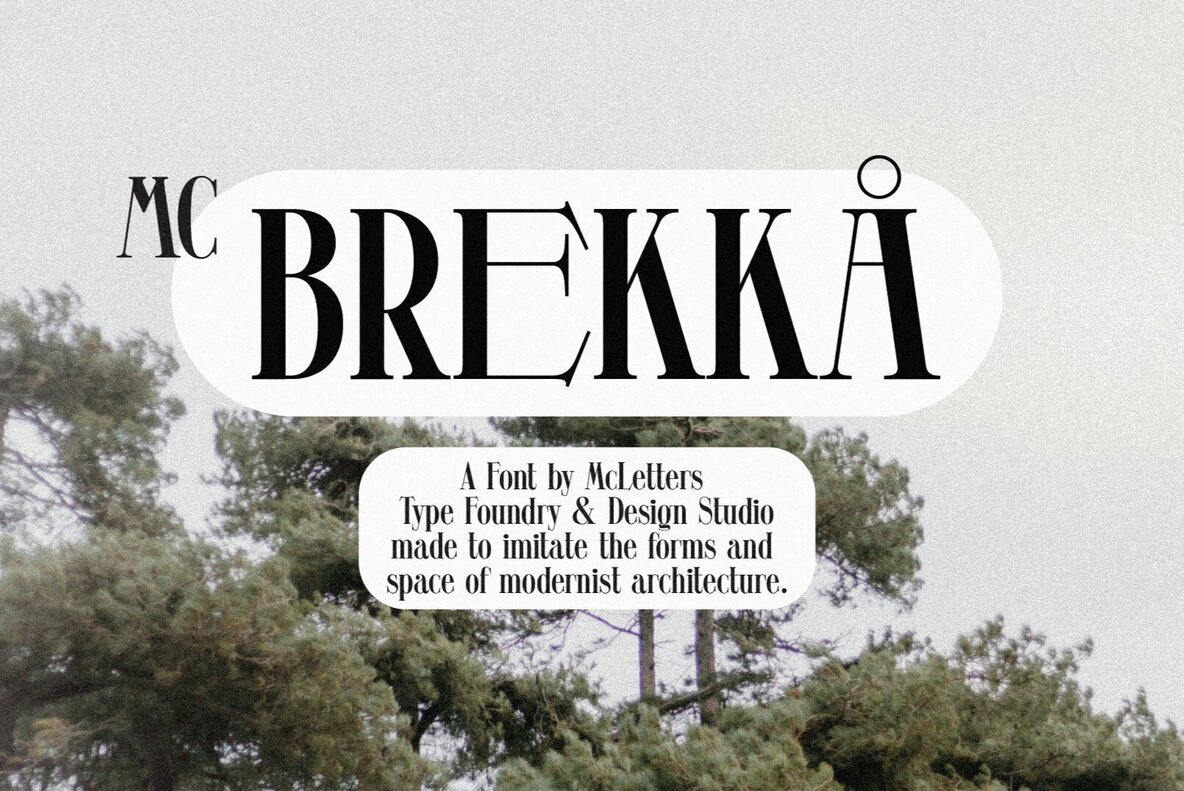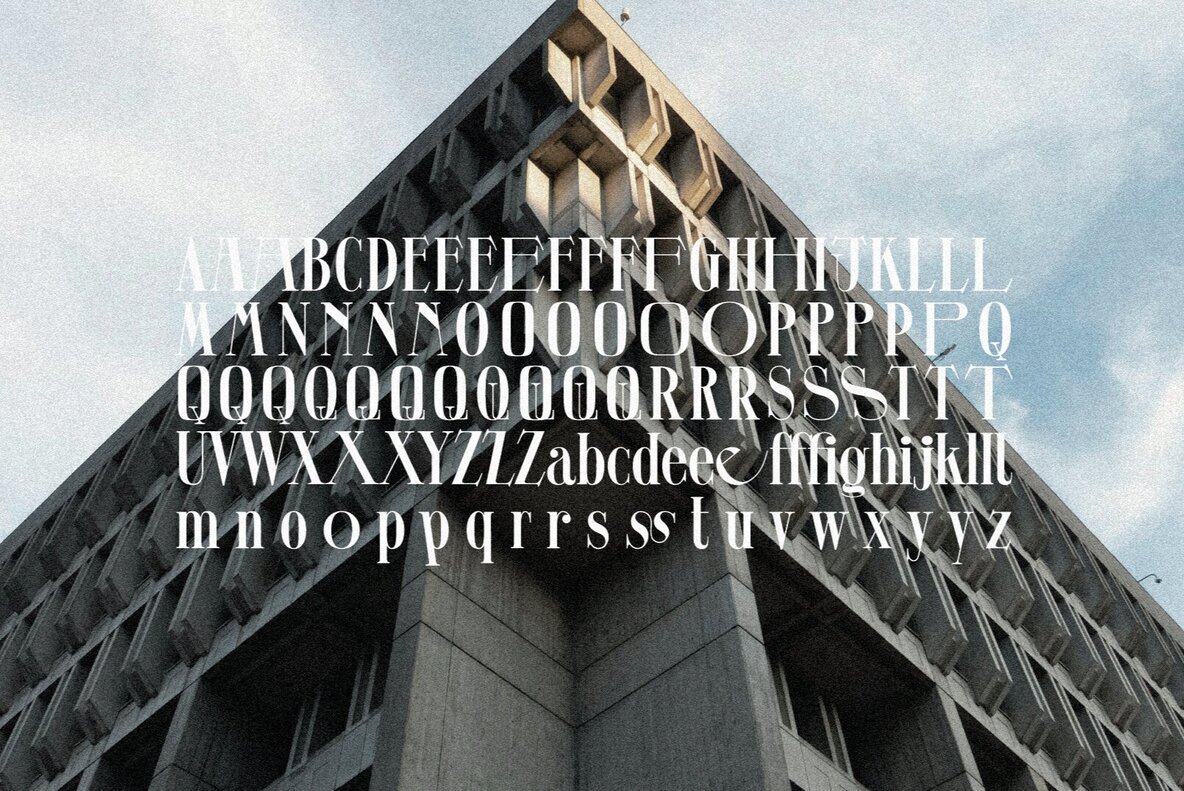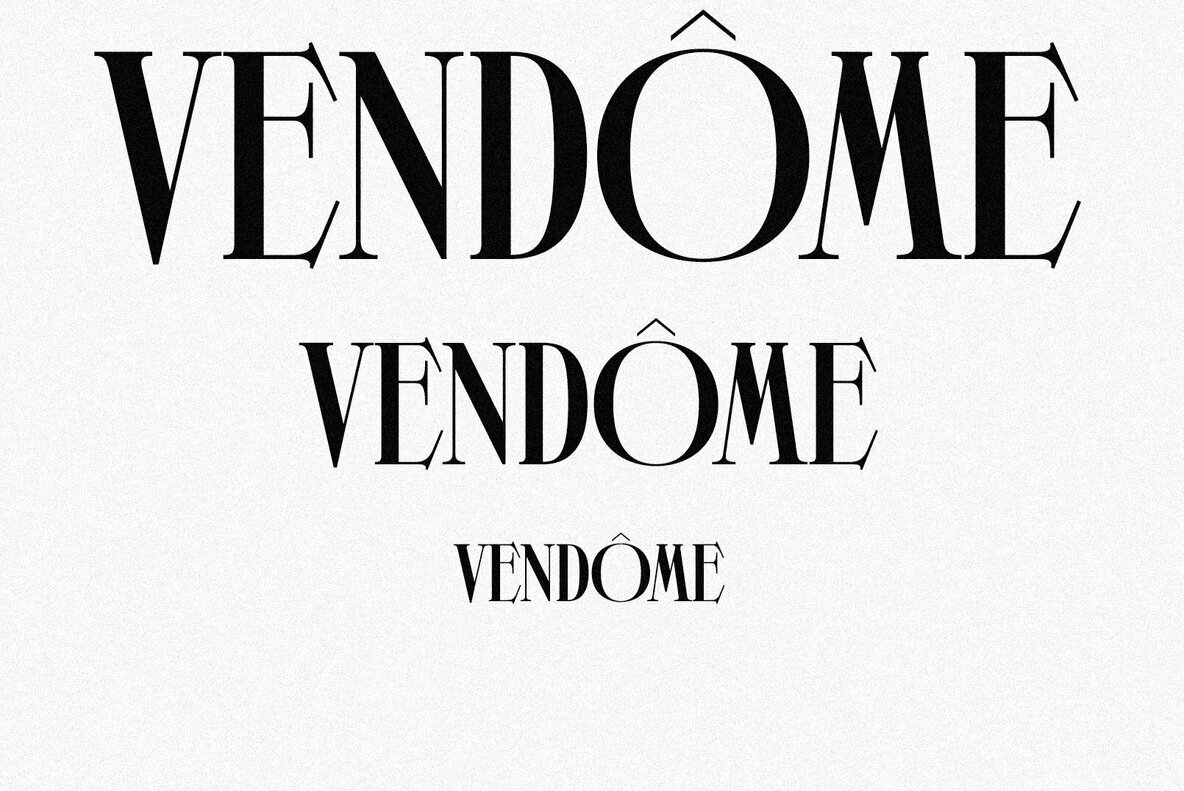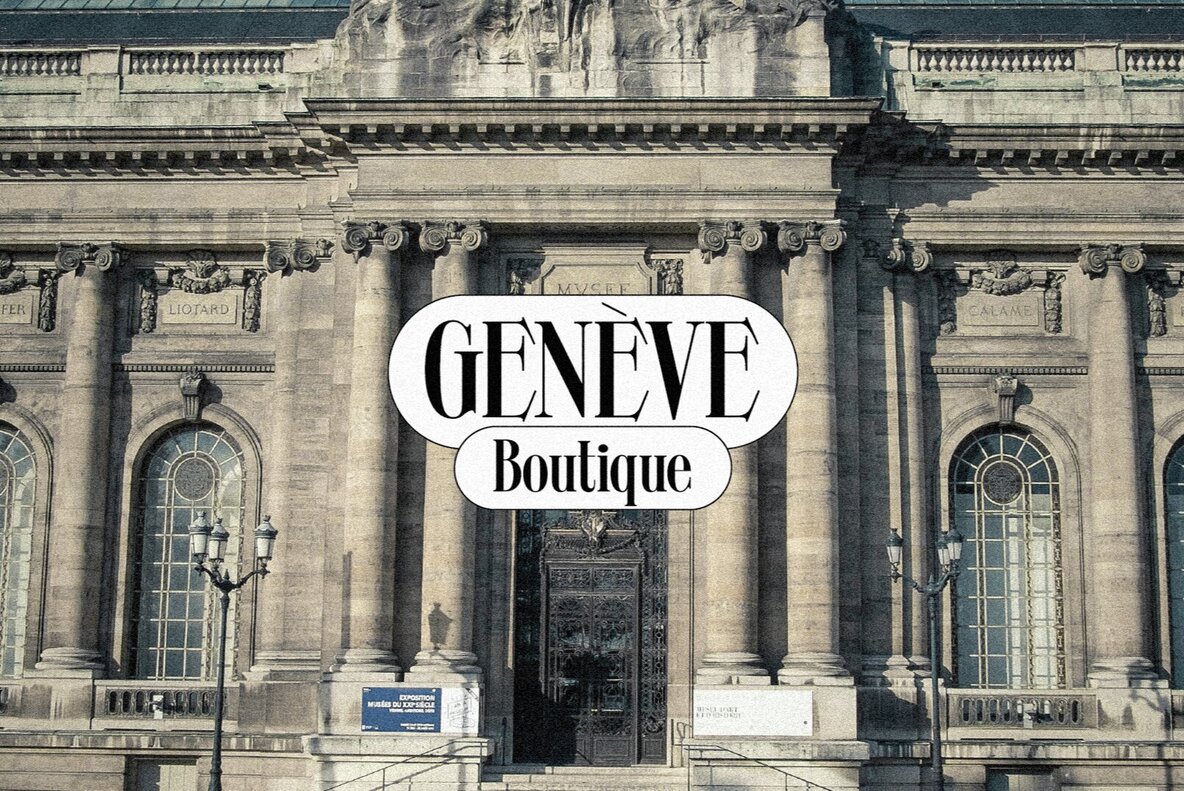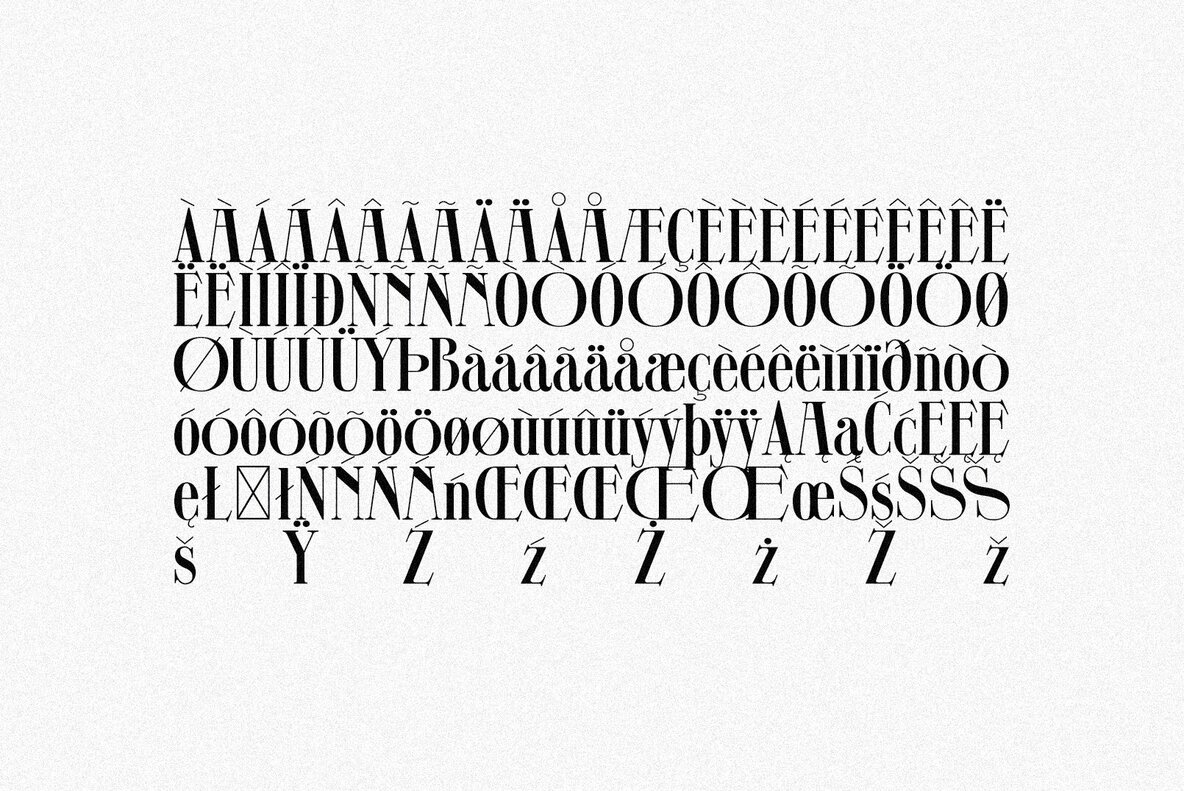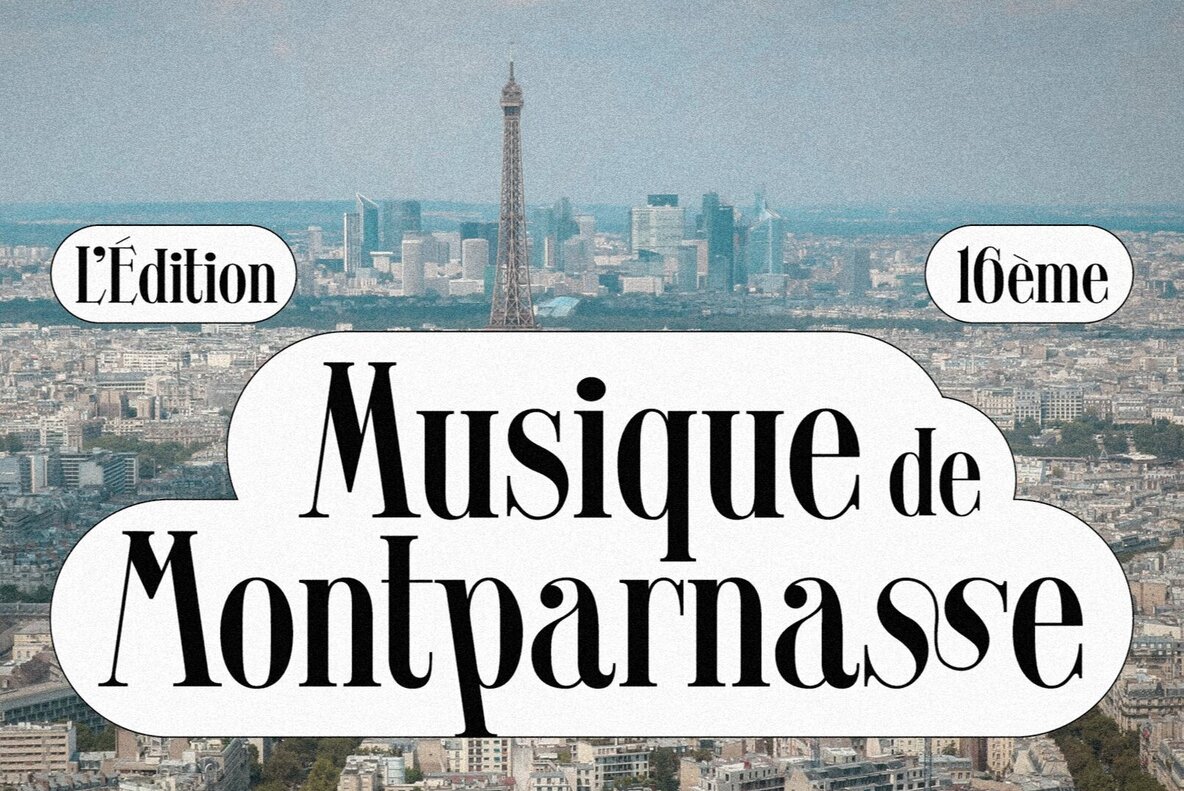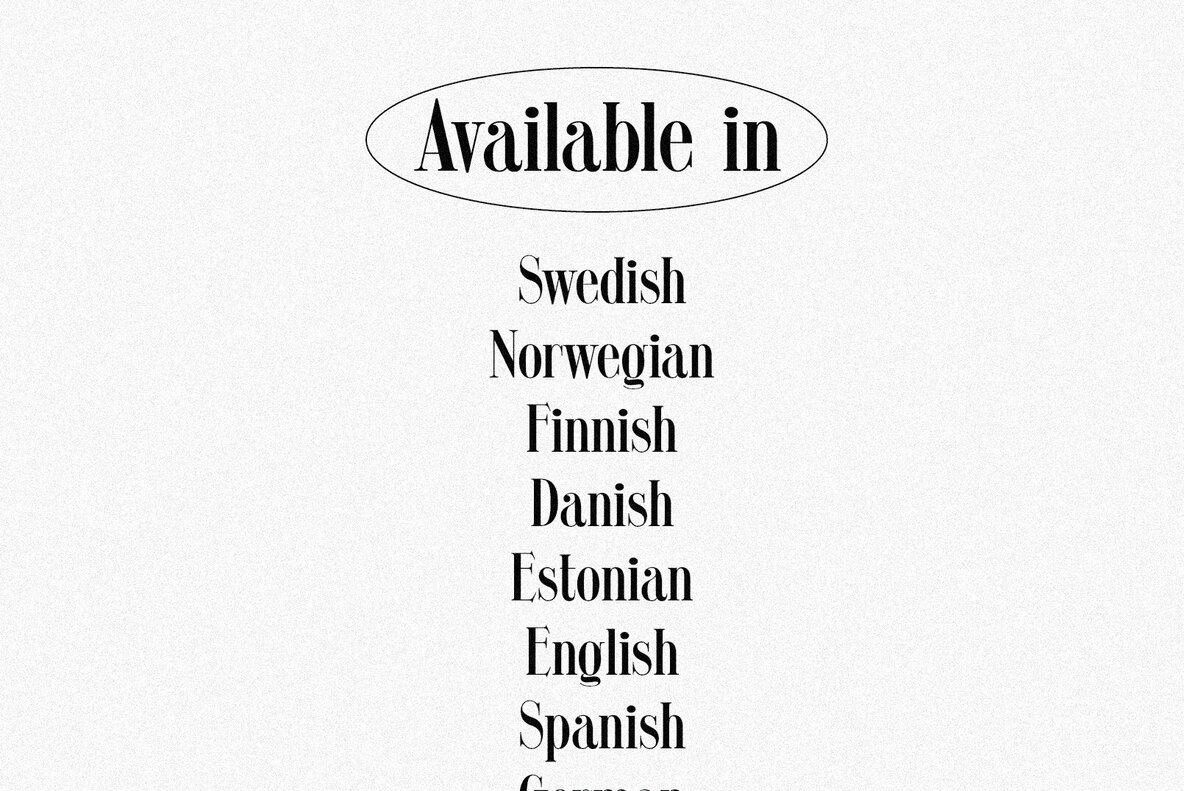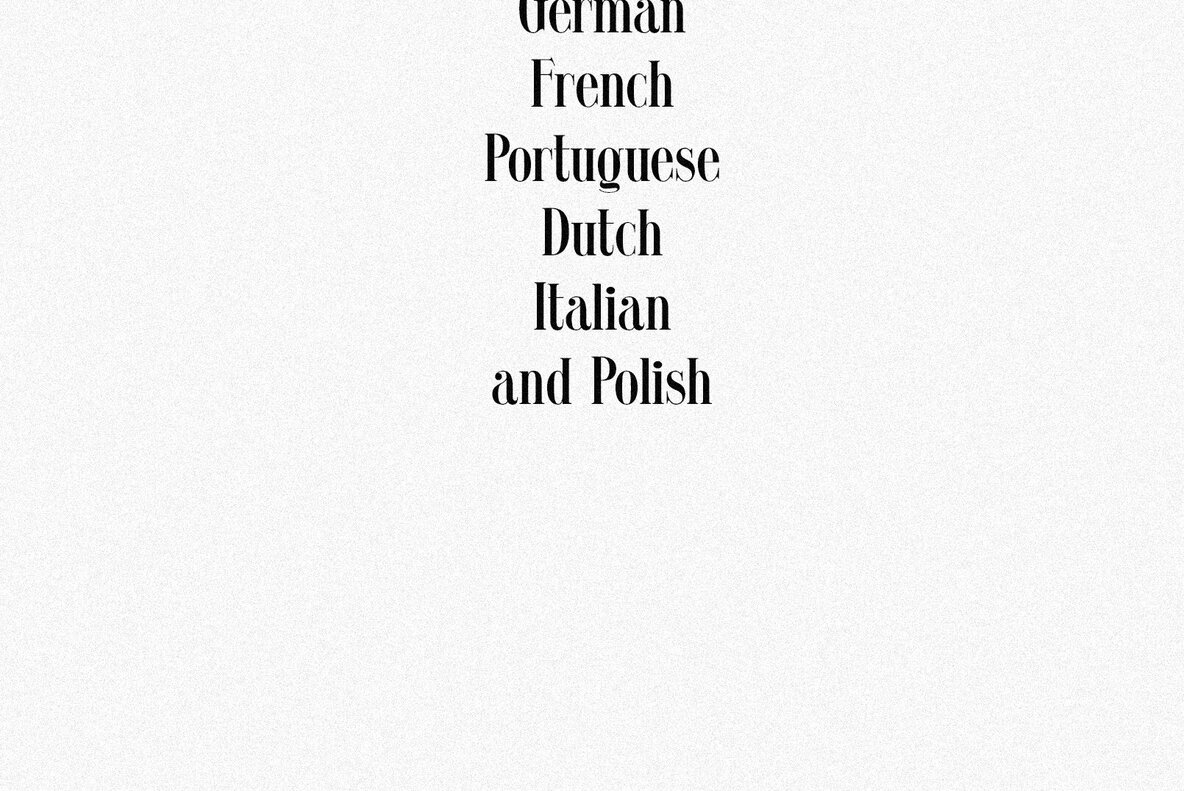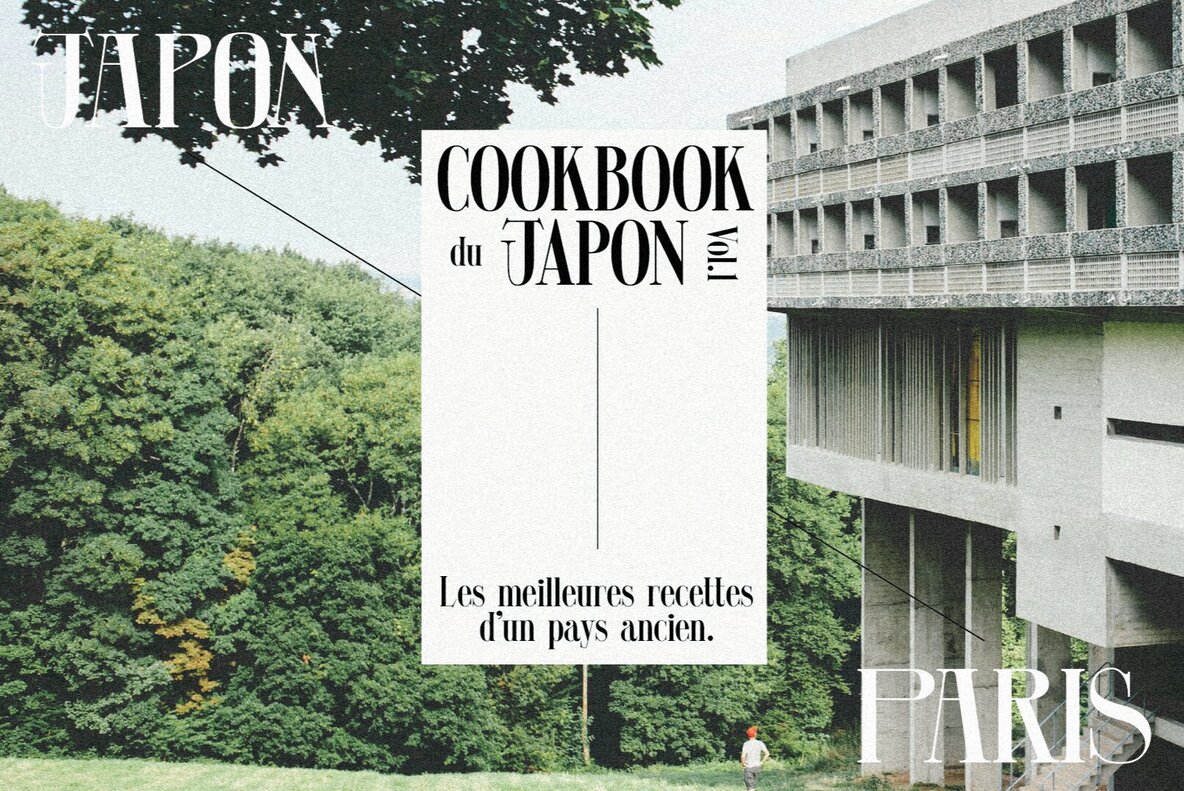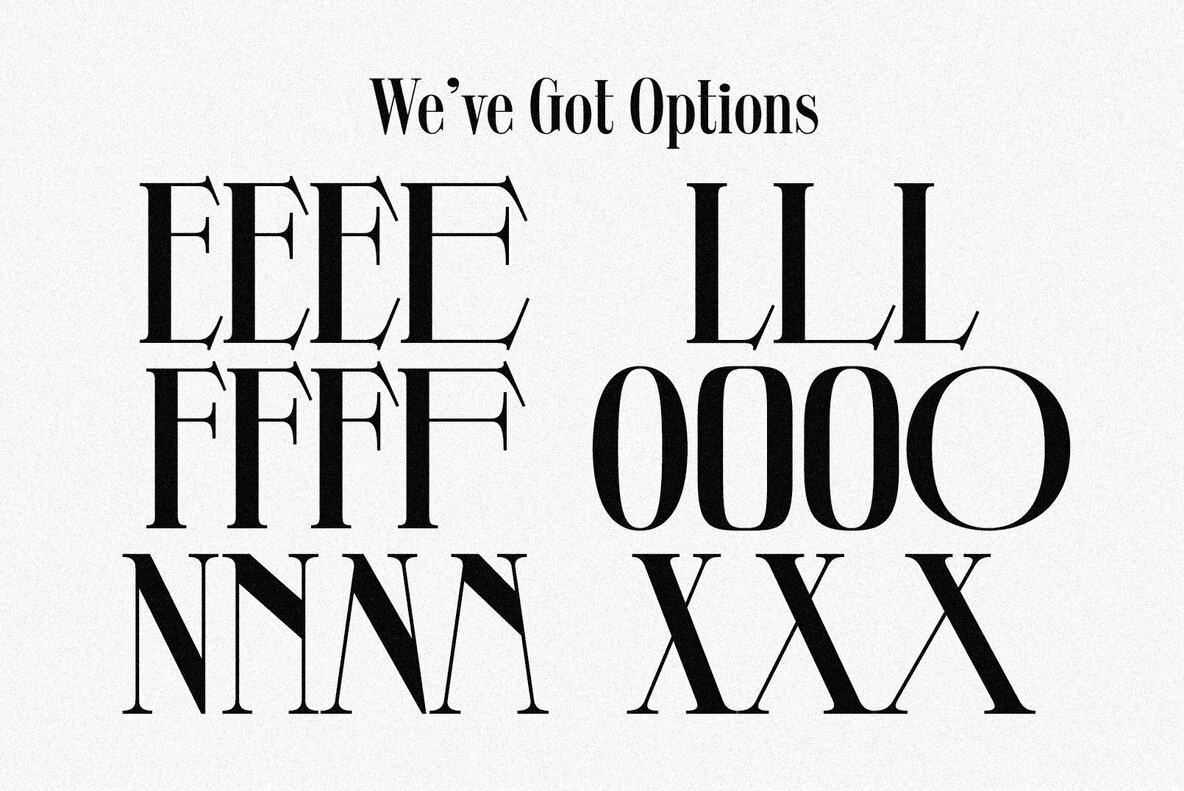
MC Brekkå Font
MC Brekka
Embrace the blend of simplicity and elegance with this modern serif font, designed to elevate your design projects. Perfect for magazines, websites, books, and architecture firms, this typeface brings a touch of luxury to every word. Characterized by its high-contrast letterforms, it resonates with the sophistication akin to fashion magazines and upscale branding. Drawing inspiration from classic serif styles, it assures timeless appeal and optimal readability, making it a prime choice for headlines and titles across premium design contexts.High-Contrast Serif: A Modern Typeface for Sophisticated Design